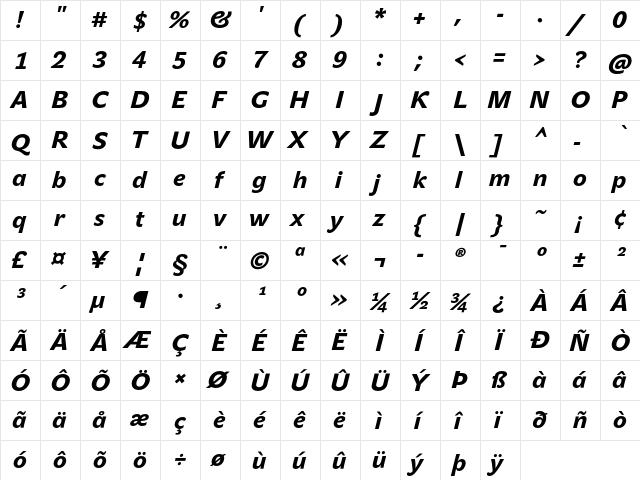
JohnSans Medium Pro Bold Italic Font Preview
Design Context for JohnSans Medium Pro Typeface
JohnSans Medium Pro takes a measured approach to typography — its balanced proportions and neutral character make it a reliable workhorse for both digital and print work. The dynamic lean of this cut emphasises speed and emphasis in any layout. The heavy weight commands attention and anchors typographic hierarchies.
Pro Tip: Try JohnSans Medium Pro for annotation and caption copy alongside an upright companion — the contrast in angle creates a dynamic but ordered typographic system.